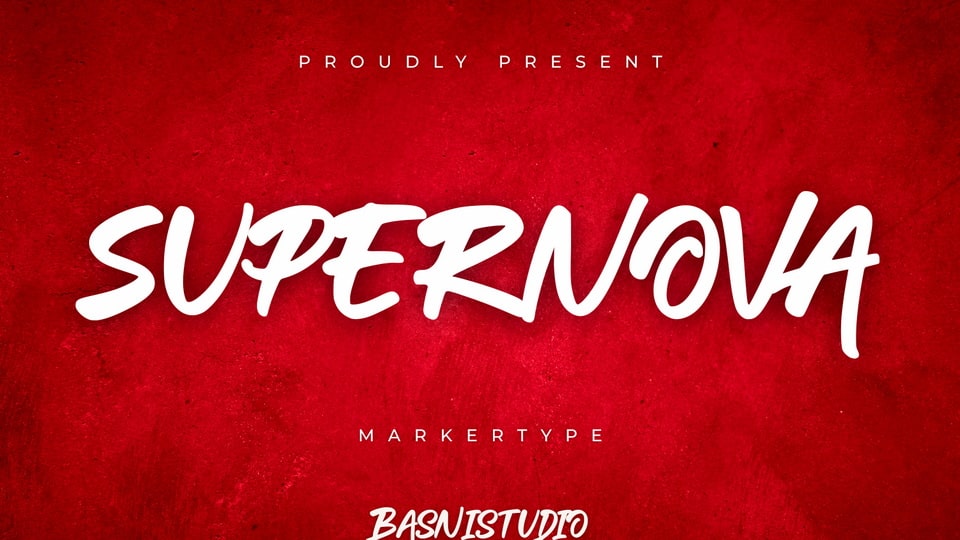
Download Supernova font, a marker type typeface that adds a natural, bold and strong touch to everything from branding and social media to invitations and packaging.